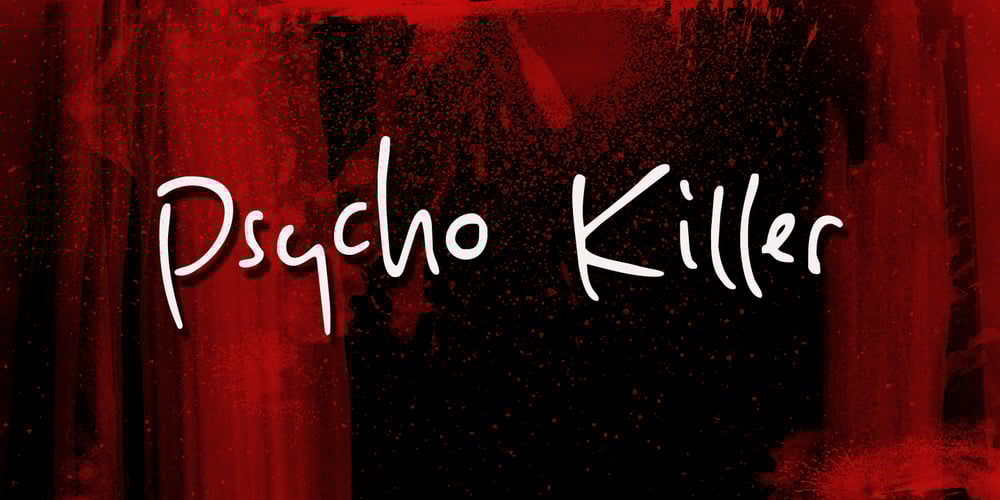
Psycho Killer Font Family was designed by David Kerkhoff and published by Hanoded. Psycho Killer contains 1 styles and family package options. Psycho Killer is a song by the Talking Heads. It is also one of my favorite songs, so I figured I’d name a font after it. Psycho Killer is a script font; it contains some messy glyphs and gives the overall impression of a hastily scribbled note. Psycho Killer comes with alternates and a bagful of diacritics.